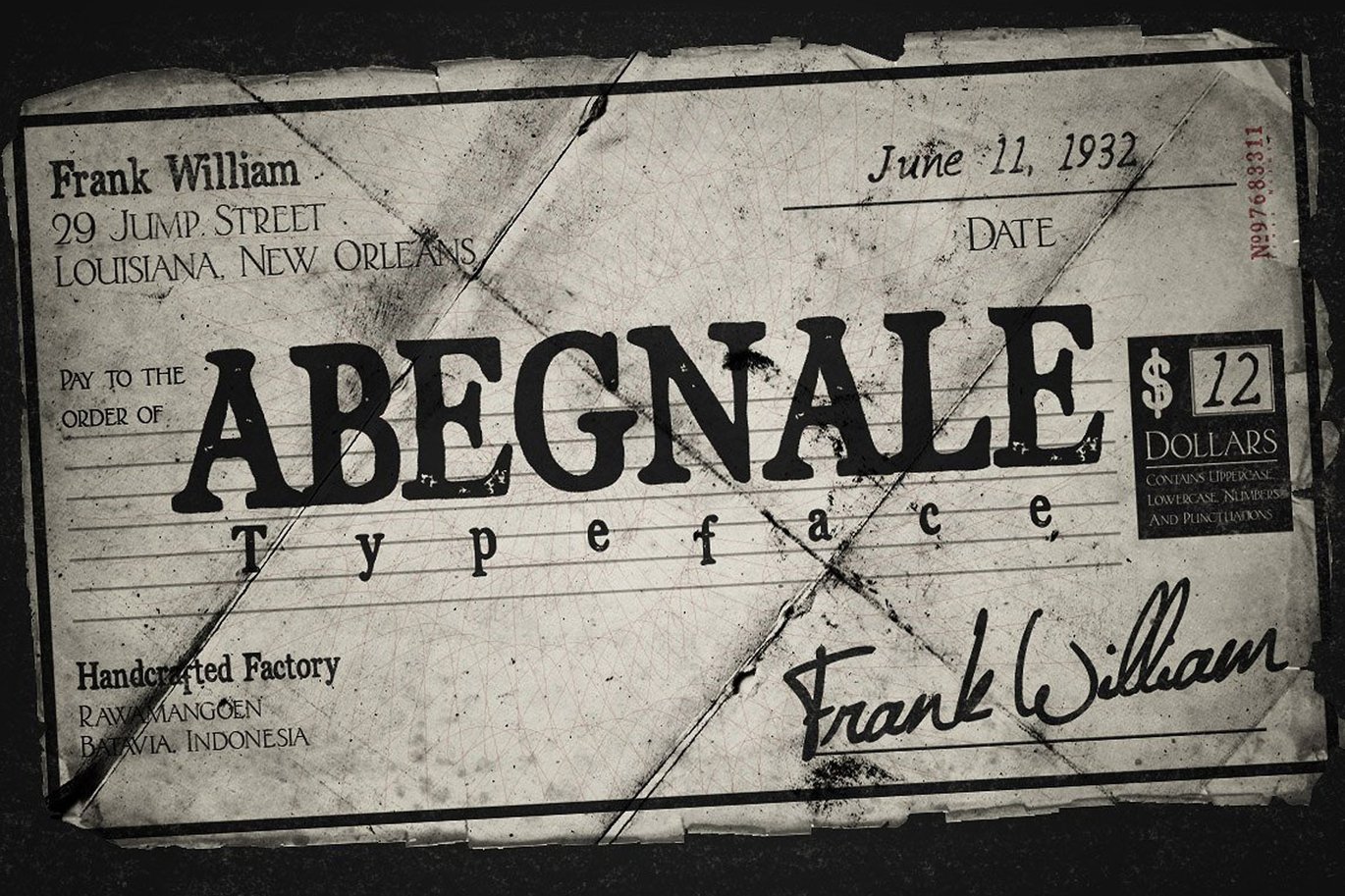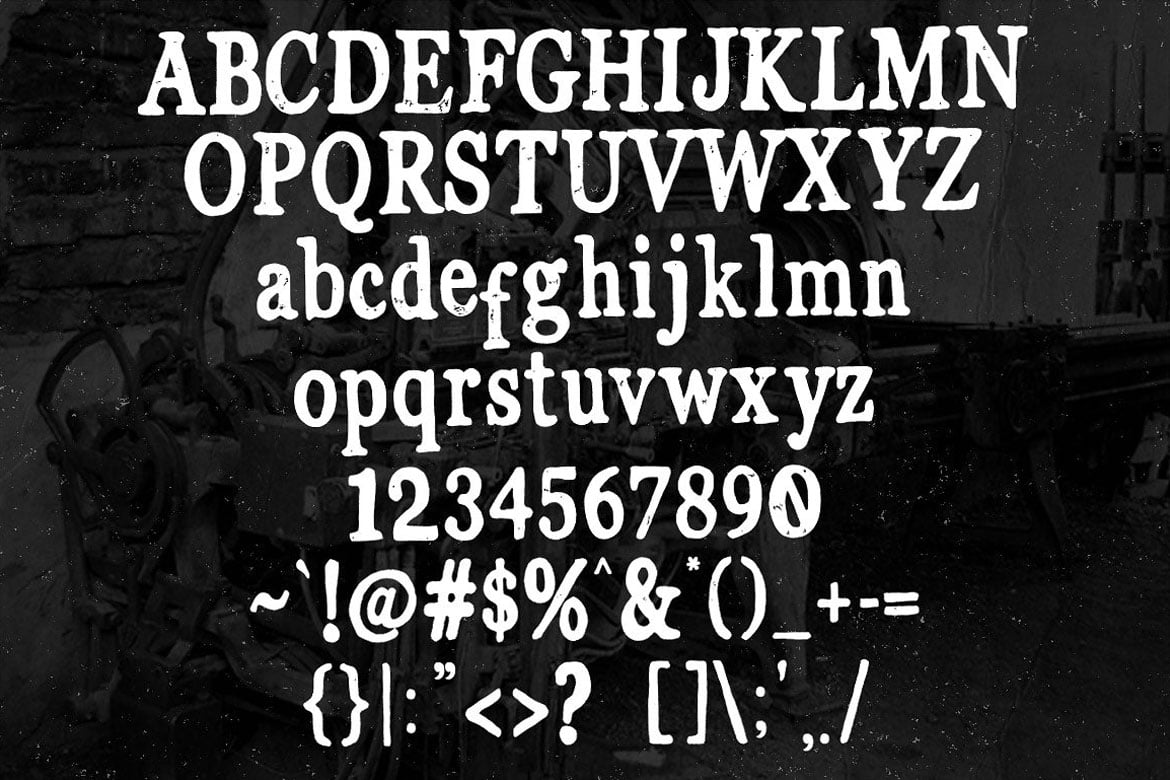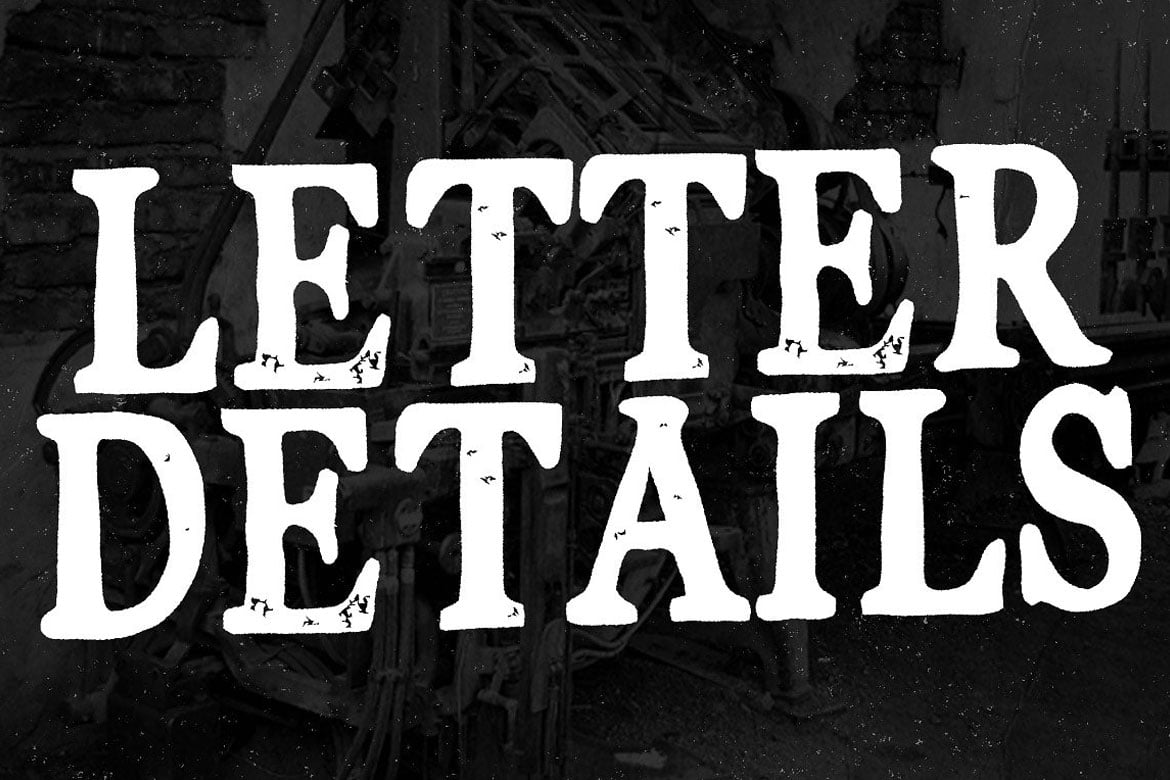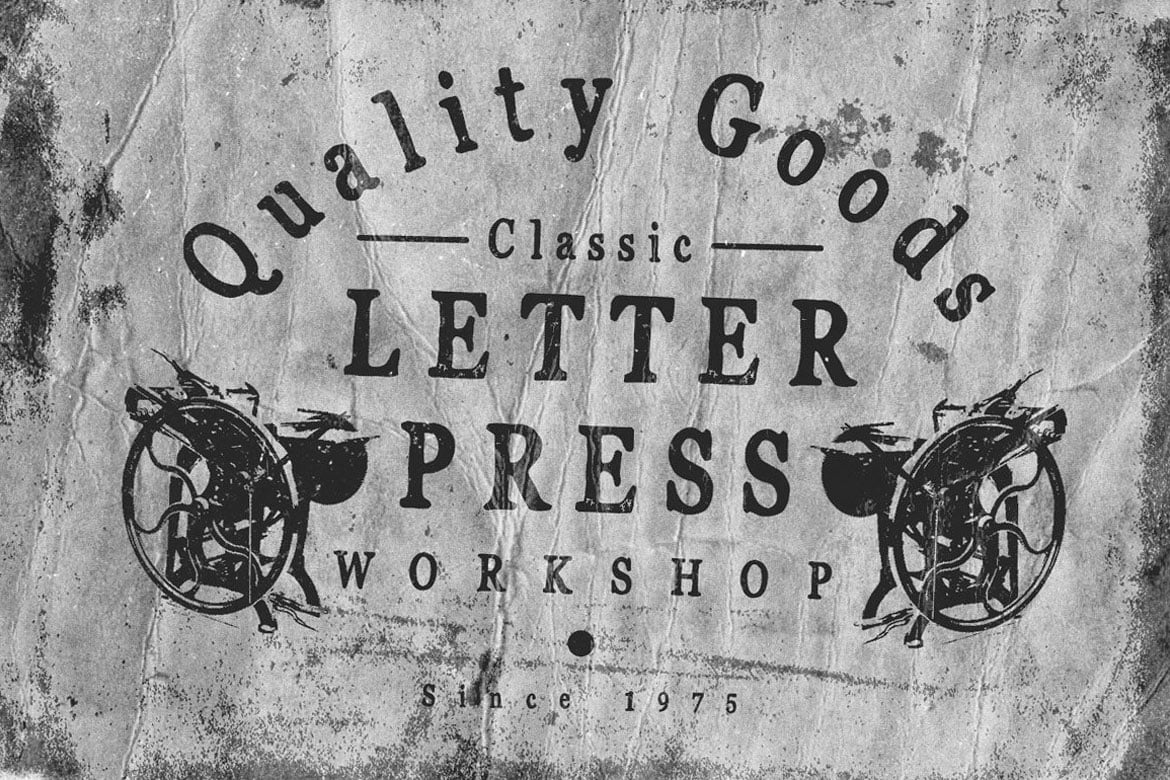
Abegnale Typeface
Inspired by the old era of handmade letterpress machine that gives you an authentic manual made feel and the press effect on some letters that produced
Uppercase, Lowercase, Numbers and Punctuations available